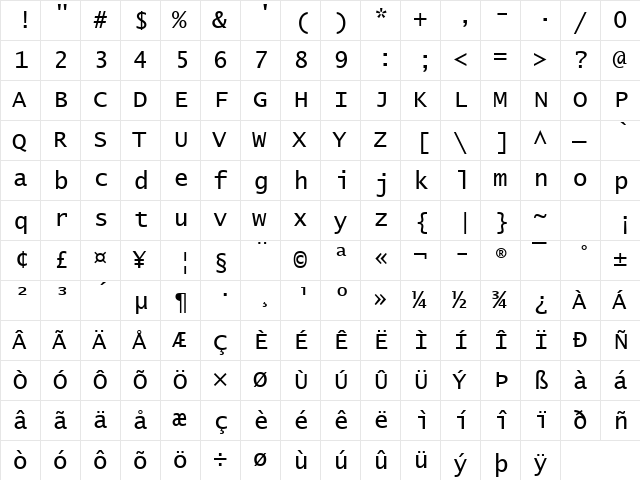
Lucida Console Regular
Design Context for Lucida Console Typeface
Lucida Console is a composed and adaptable typeface that performs quietly and consistently across a wide range of design contexts.